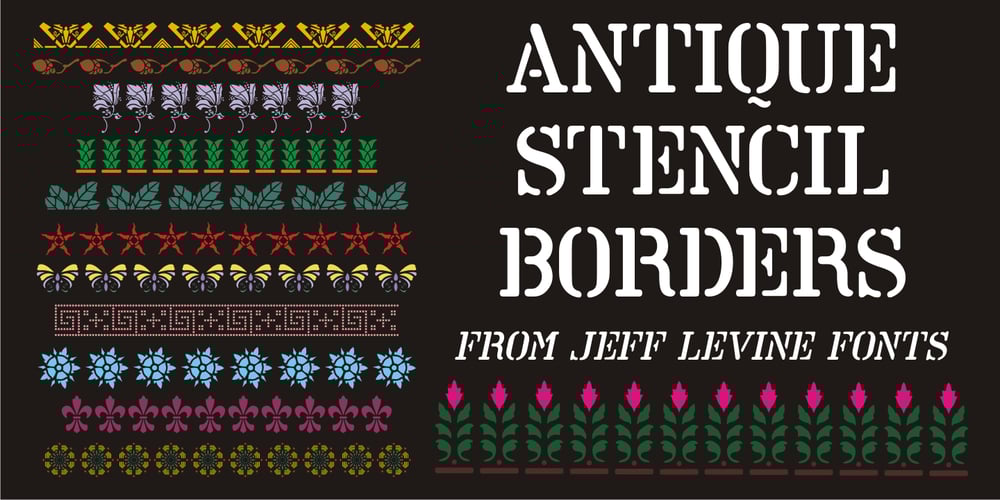
Antique Stencil Borders JNL
Antique Stencil Borders JNL font
Antique Stencil Borders JNL Font Family was designed by Jeff Levine and published by Jeff Levine. Antique Stencil Borders JNL contains 1 styles and family package options. Antique Stencil Borders JNL collects twenty-six vintage border designs from various sources for complementing copy set in stencil lettering or in stand-alone decorative projects. NOTE: The purchase of this font does NOT include license to replicate the designs as commercial products for resale. To do so, a Derivative Products License must be obtained by contacting Jeff Levine. Contact information is found within the End User License Agreement.